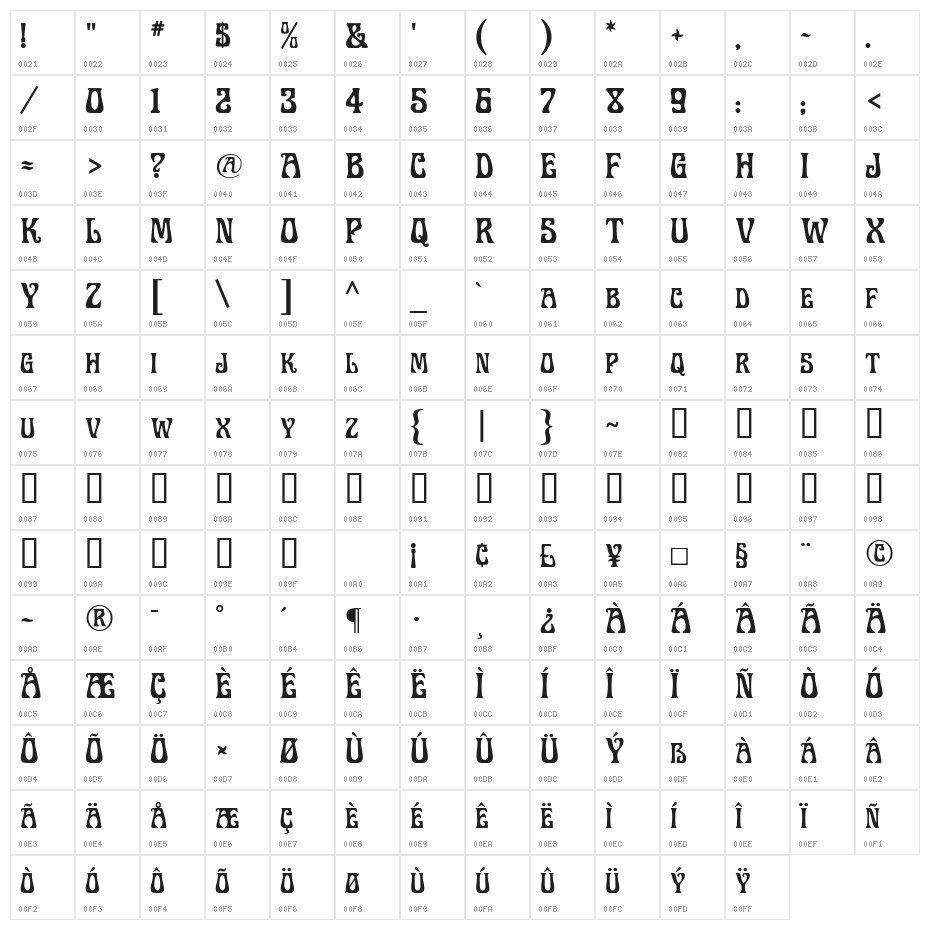
Legrand Font
Legrand Description
This font features a bold and decorative style with a unique flair. Each character is designed with a playful yet sophisticated touch, incorporating subtle curves and exaggerated serifs that give it a distinctive appearance. The uppercase letters are particularly striking, with their bold presence and intricate detailing. The lowercase letters maintain the same decorative style, ensuring consistency throughout. Numbers and special characters are equally stylized, making them stand out while remaining legible. This font is perfect for projects that require a touch of elegance and creativity.
Proposed ProjectsIdeal for branding, posters, headlines, and creative design projects.